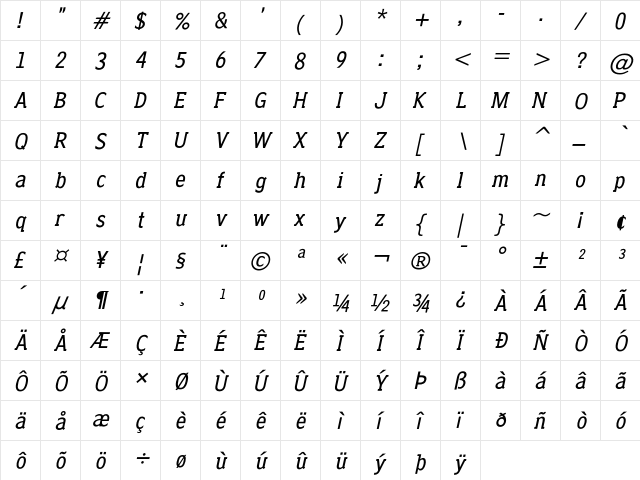
Clique SerifOblique Font Preview
Clique SerifOblique
Design Context for Clique Typeface
Clique brings classic typographic sensibility to the table — its serifs and measured letterforms reflect centuries of print heritage. The dynamic lean of this cut emphasises speed and emphasis in any layout.
Pro Tip: Set Clique with slightly loose tracking in headlines to let each letterform's detail read clearly at display sizes.